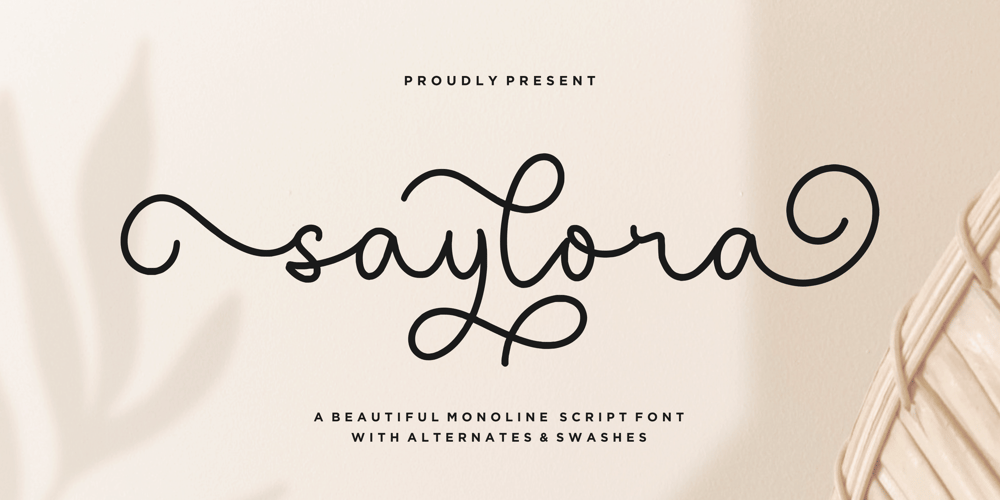
Saylora Font Family was designed by Restu Angga and published by Balpirick. Saylora contains 1 styles and family package options. saylora is a Beautiful Monoline Script Font.saylora is perfect for product packaging, branding project, megazine, social media, wedding, or just used to express words above the background.saylora also multilingual support.Alternates & Lowercase Ending Swashes.Enjoy the font, feel free to comment or feedback, send me PM or email.Thank you!